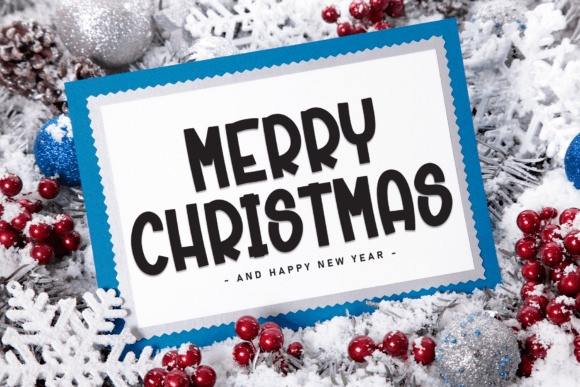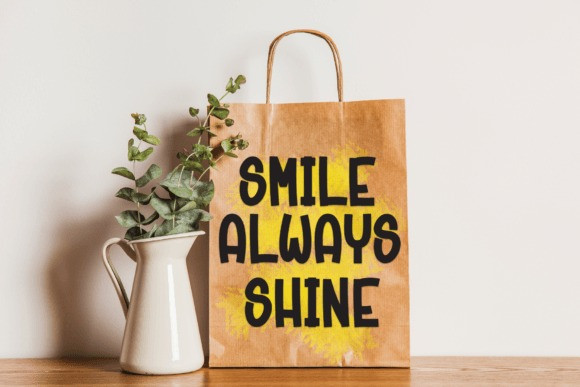
Santa December Font
Santa December Font is a sweet and friendly handwritten display font. Cute and fun, this font is ideal for writing wedding invitations, cards, or any other design that might need a fun touch!